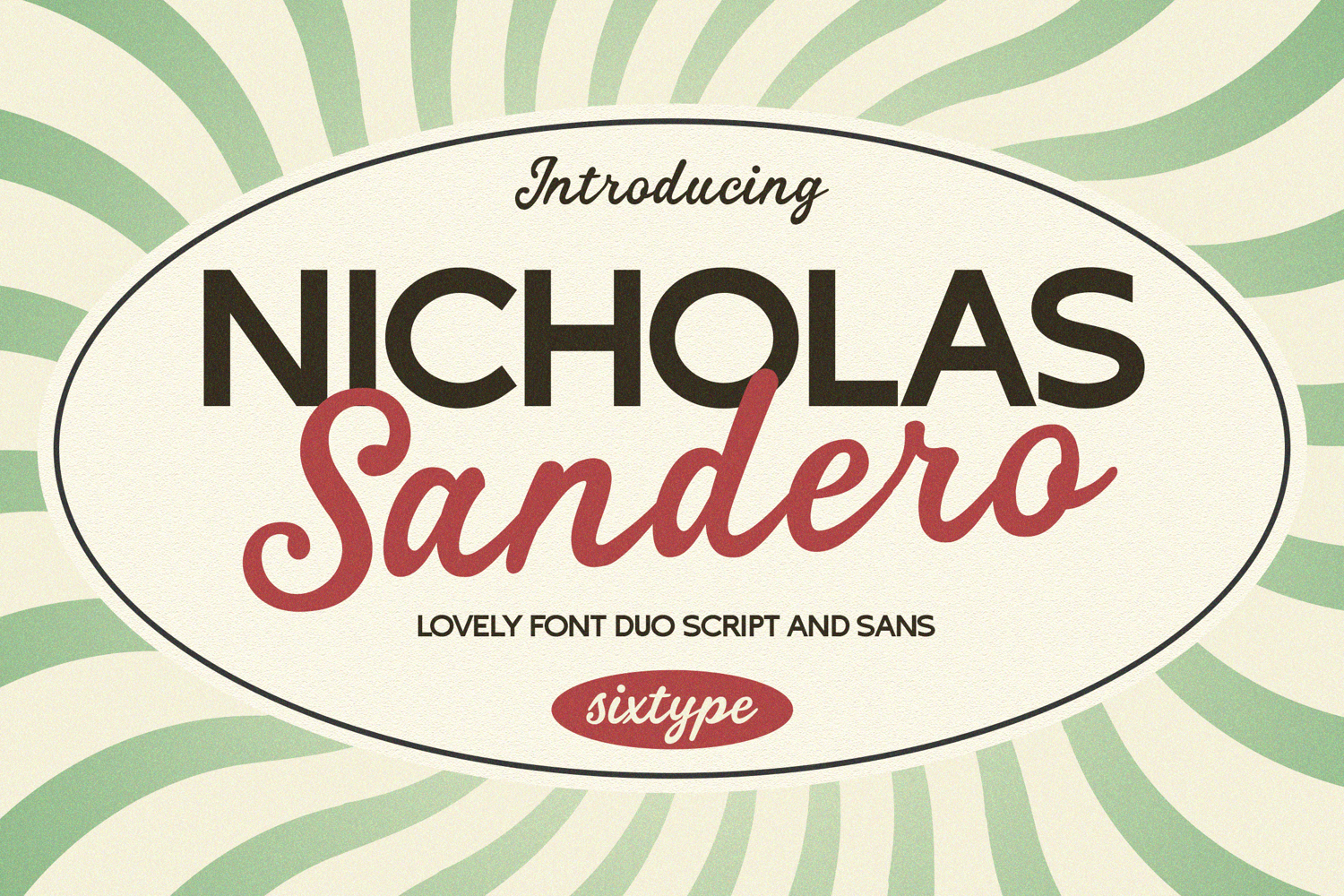
Nicholas Sandero Retro Whimsical Font
Nicholas Sandero is a captivating font duo that seamlessly blends a flowing vintage-inspired script with a clean geometric sans serif, making it an ideal choice for both nostalgic and contemporary designs. The script showcases smooth connections, soft curves, and a handcrafted feel, while the sans serif adds balance, clarity, and modern structure. Together, they create a warm, whimsical, and approachable aesthetic, perfect for a variety of applications including branding, packaging, wedding stationery, invitations, logos, social media graphics, café menus, lifestyle products, posters, and editorial projects. With its retro flair, friendly personality, and exceptional readability, Nicholas Sandero empowers designers to craft eye-catching compositions that are both timeless and inviting.